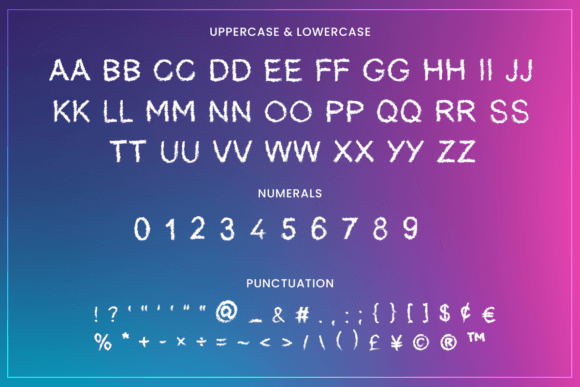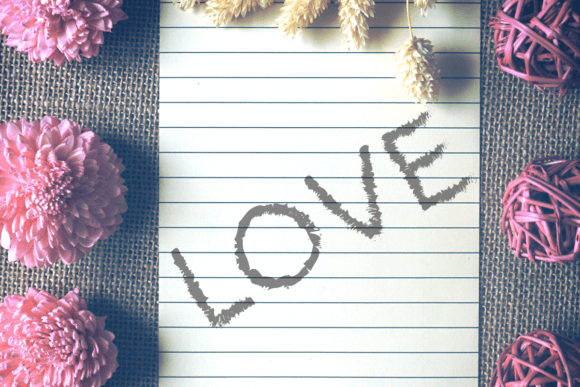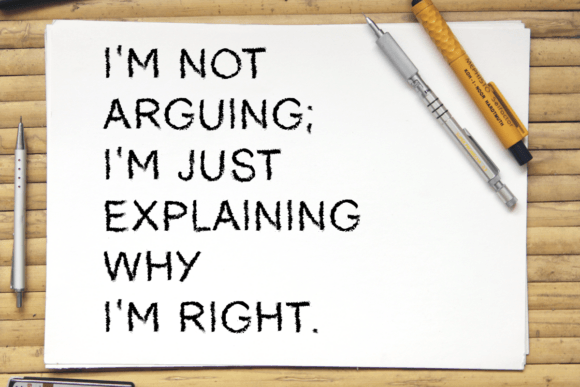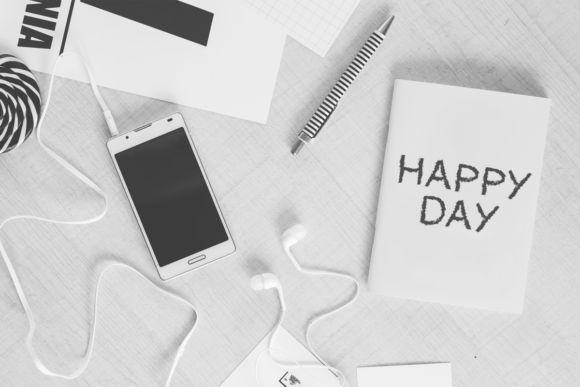
Introducing Distant Rough Font: A Bold Statement in Typography
In the vast and dynamic world of typography, a new font has emerged to make a lasting impression. Meet Distant Rough, a striking all-caps display font that is designed to captivate and inspire. With its unique rough edges and grunge style, Distant Rough is the perfect addition to any creative project that demands attention and flair.
The Power of Distant Rough: Making a Statement
Distant Rough is not just a font; it’s a statement. Its bold and distressed appearance makes it an ideal choice for designers and crafters looking to add a touch of ruggedness to their work. Whether you’re creating posters, headlines, branding materials, or any other creative project, Distant Rough ensures that your message stands out in style.
Key Features of Distant Rough Font
- All-caps display font: Distant Rough is designed to make a big impact with its all-caps letters, perfect for headlines, titles, and short phrases.
- Rough edges: The font’s rough edges give it a unique, grunge aesthetic that’s perfect for adding a touch of ruggedness to your designs.
- Distressed style: The distressed style of Distant Rough adds a layer of depth and character to your text, making it perfect for creative projects that demand attention.
- Timeless aesthetic: Despite its grunge style, Distant Rough maintains a timeless aesthetic that ensures your designs won’t look dated anytime soon.
Distant Rough is a versatile font that can be used in a variety of creative projects, including:
- Posters: Add a bold and eye-catching title to your poster with Distant Rough.
- Headlines: Make your headlines stand out with the font’s bold and distressed appearance.
- Branding: Use Distant Rough to create a unique and memorable brand identity.
- Creative projects: Whether you’re working on a DIY craft project or a digital design, Distant Rough is the perfect font to add a touch of flair.
Why Choose Distant Rough?
With so many fonts available, why choose Distant Rough? Here are just a few reasons:
- Unique style: Distant Rough has a unique style that’s sure to make your designs stand out.
- Easy to read: Despite its distressed appearance, Distant Rough is easy to read, even in large blocks of text.
- Versatile: The font can be used in a variety of creative projects, from posters to digital designs.
- Timeless: Distant Rough’s timeless aesthetic ensures that your designs won’t look dated anytime soon.
Tips for Using Distant Rough
Here are a few tips for getting the most out of Distant Rough:
- Use it sparingly: Distant Rough is a bold font, so use it sparingly to avoid overwhelming your design.
- Pair it with a simple font: Pair Distant Rough with a simple font to create a striking contrast.
- Experiment with colors: Distant Rough looks great in a variety of colors, so don’t be afraid to experiment.
- Use it for emphasis: Use Distant Rough to draw attention to a specific part of your design.
Distant Rough is a bold and striking font that’s perfect for designers and crafters looking to add a touch of ruggedness to their work. With its unique rough edges, grunge style, and timeless aesthetic, Distant Rough is sure to make a lasting impression. Whether you’re creating posters, headlines, branding materials, or any other creative project, Distant Rough is the perfect font to help your message stand out in style.